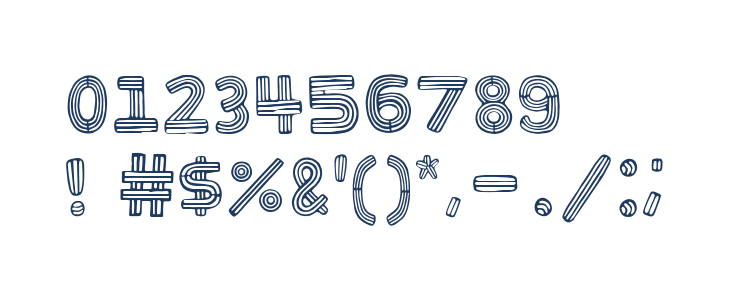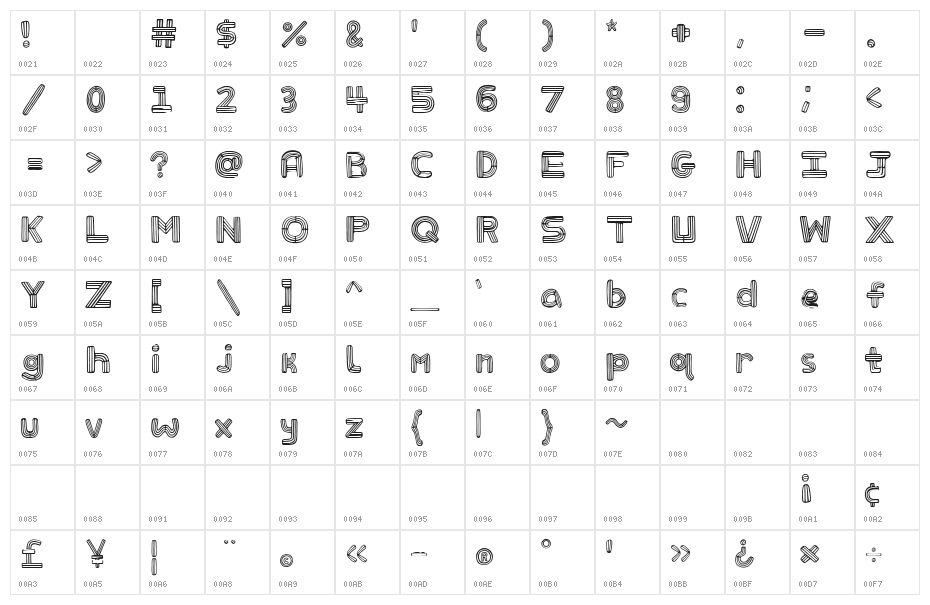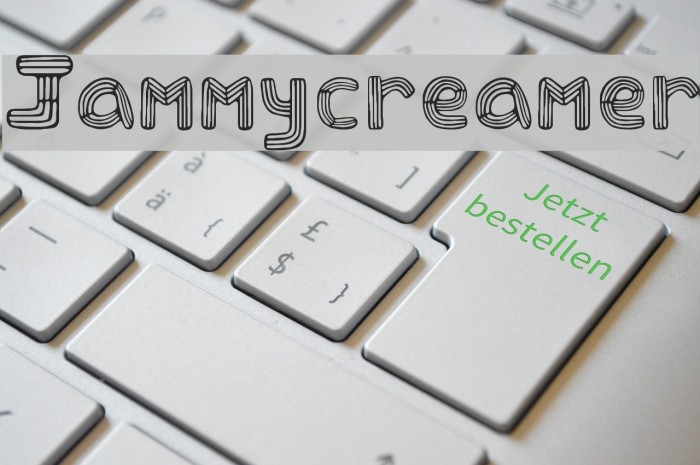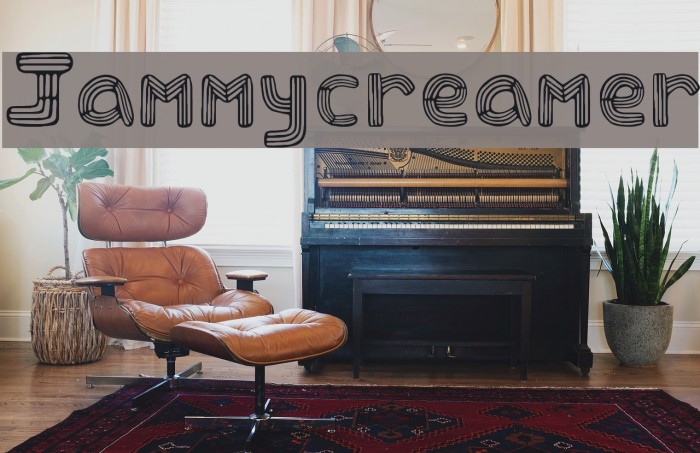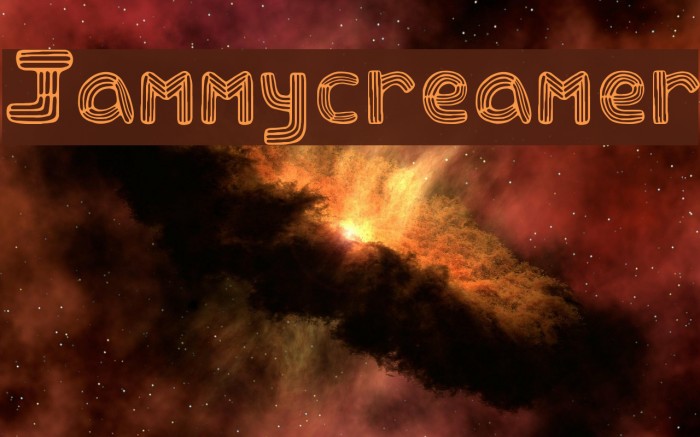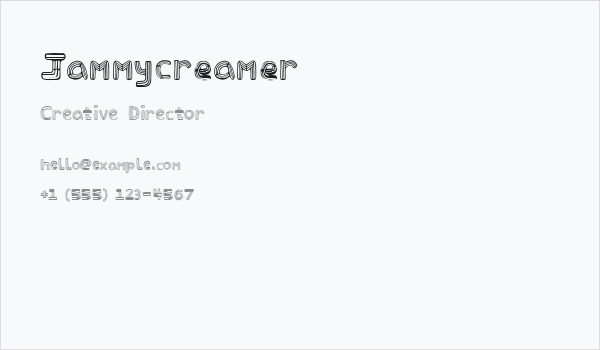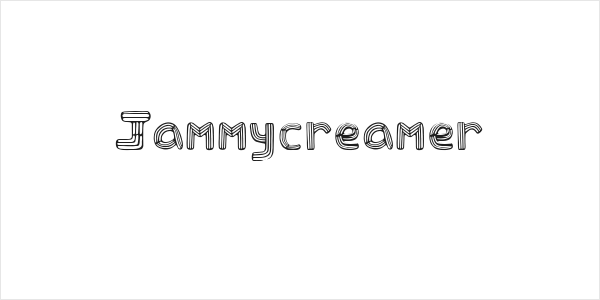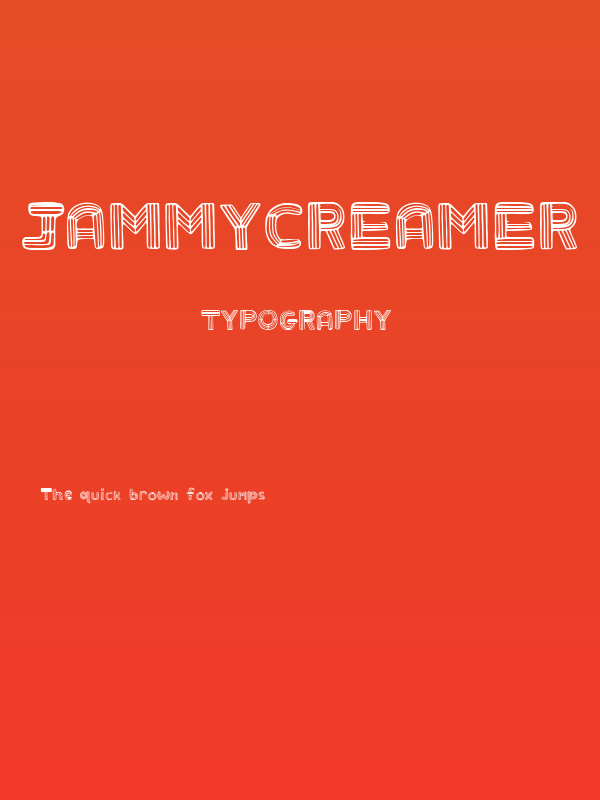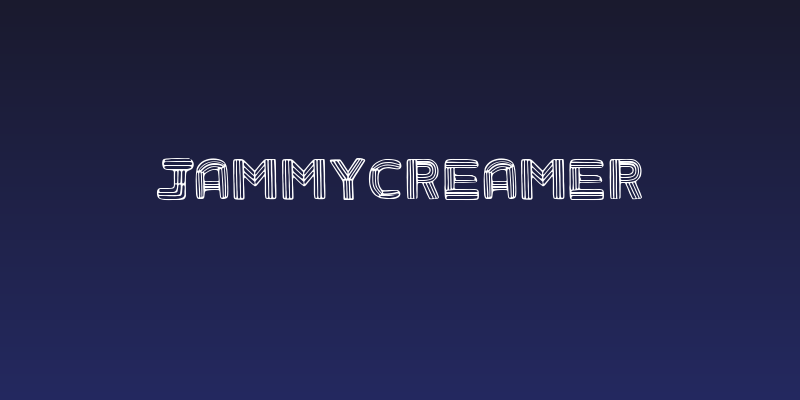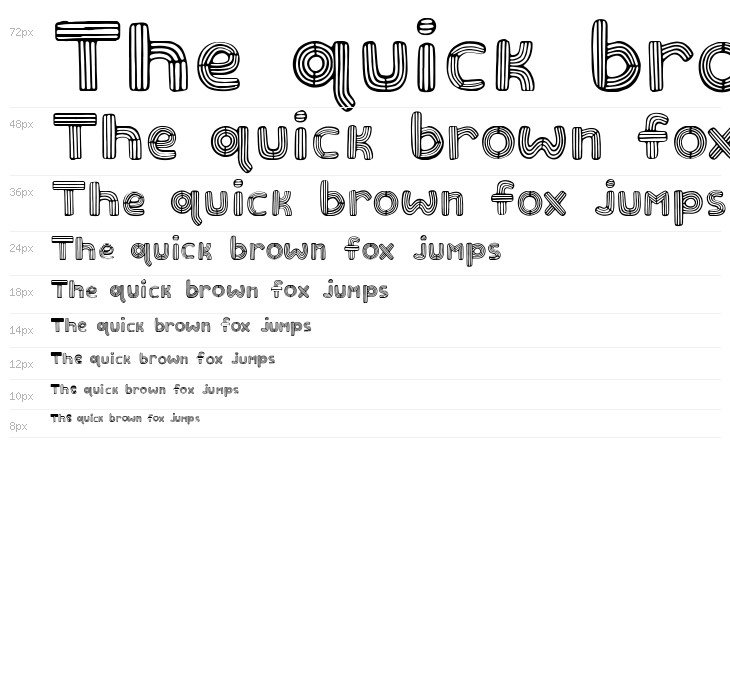
Jammycreamer Font
Jammycreamer Description
This font features a playful and bold design with a unique striped pattern running through each character. The letters are rounded and have a three-dimensional effect, giving them a lively and dynamic appearance. The uppercase and lowercase letters maintain consistent styling, with the stripes adding a sense of movement and energy. The numbers and special characters follow the same design principles, ensuring uniformity across all elements. This font's distinct style makes it stand out, making it ideal for creative and eye-catching projects.
| Overall Style | Playful, Modern |
| Proposed Projects | Ideal for posters, children's books, playful branding, and creative advertising. |